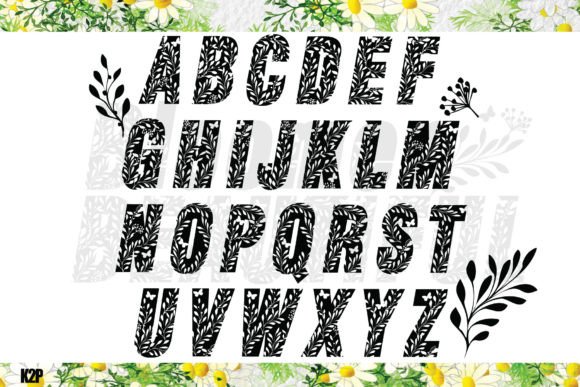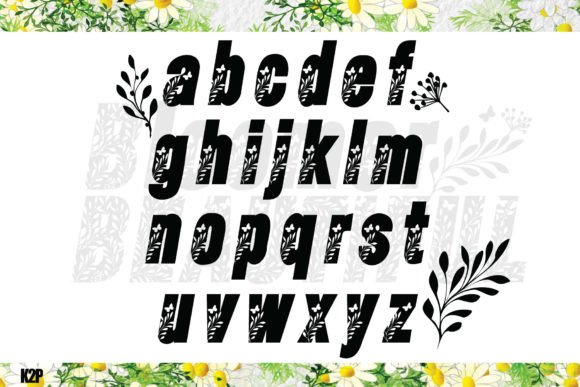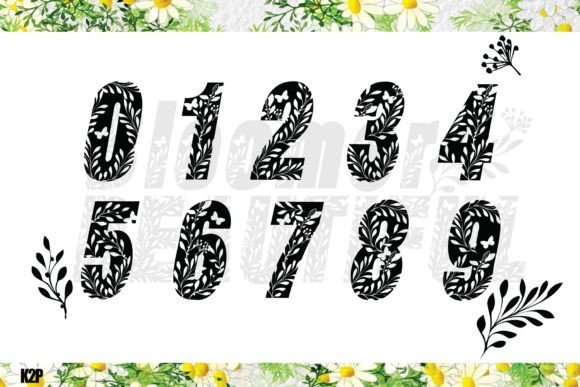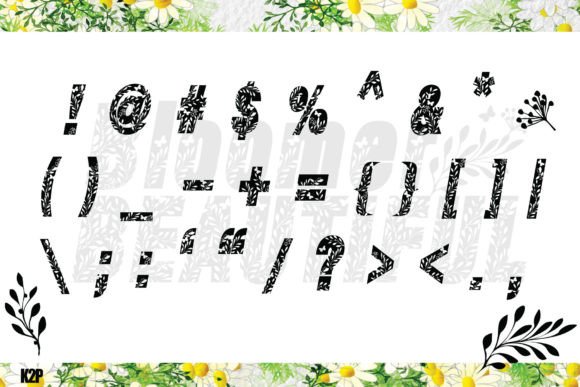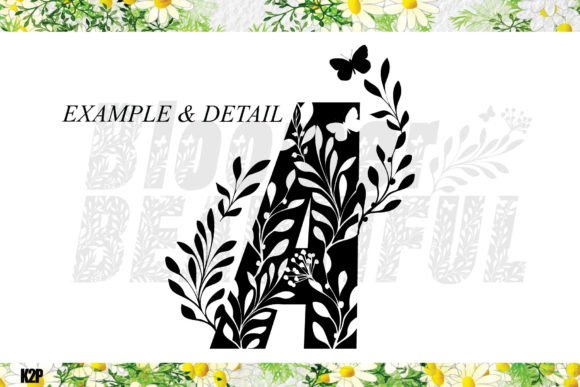
The Bloomer Beautiful Font: A Nature-Inspired Treasure for Your Designs
Have you ever been in the middle of a crafting project, pouring your heart and soul into it, only to realize that something’s missing? For me, that something was a beautiful, nature-inspired font that would bring my design to life. That’s when I stumbled upon the Bloomer Beautiful font, and let me tell you, it’s been a game-changer! 🌿
I’m excited to share my honest review of the Bloomer Beautiful font with you. Here’s what I love:
• ✨ Unique and eye-catching design: This font is truly one-of-a-kind, with its beautiful swashes and glyphs that will make your designs stand out.
• ✅ PUA encoded for easy access: The font is PUA encoded, which means you can easily access all the glyphs and swashes without any hassle.
• 🌸 Inspired by nature: The font’s design is inspired by the beauty of nature, making it perfect for crafting projects that require a personalized touch.
Now, I do have to mention a few small quirks:
• 🤔 Some characters may require manual kerning: As with any decorative font, you may need to adjust the kerning of some characters to get the perfect look.
• ⚠️ Not suitable for body text: Due to its decorative nature, the Bloomer Beautiful font is best used for headlines, titles, or short phrases, rather than body text.
The Designer Inspiration Behind Bloomer Beautiful
The Bloomer Beautiful font was inspired by the beauty of nature and the art of gardening. The designer wanted to create a font that would evoke the feeling of a lush garden, with its intricate swashes and glyphs. The result is a truly unique and eye-catching font that’s perfect for any crafting project.
What is the Bloomer Beautiful font best used for? The Bloomer Beautiful font is best used for crafting projects that require a personalized touch, such as invitations, greeting cards, and social media graphics.
Is the Bloomer Beautiful font PUA encoded? Yes, the Bloomer Beautiful font is PUA encoded, which means you can easily access all the glyphs and swashes.
Is the Bloomer Beautiful font suitable for body text? No, the Bloomer Beautiful font is best used for headlines, titles, or short phrases, rather than body text.